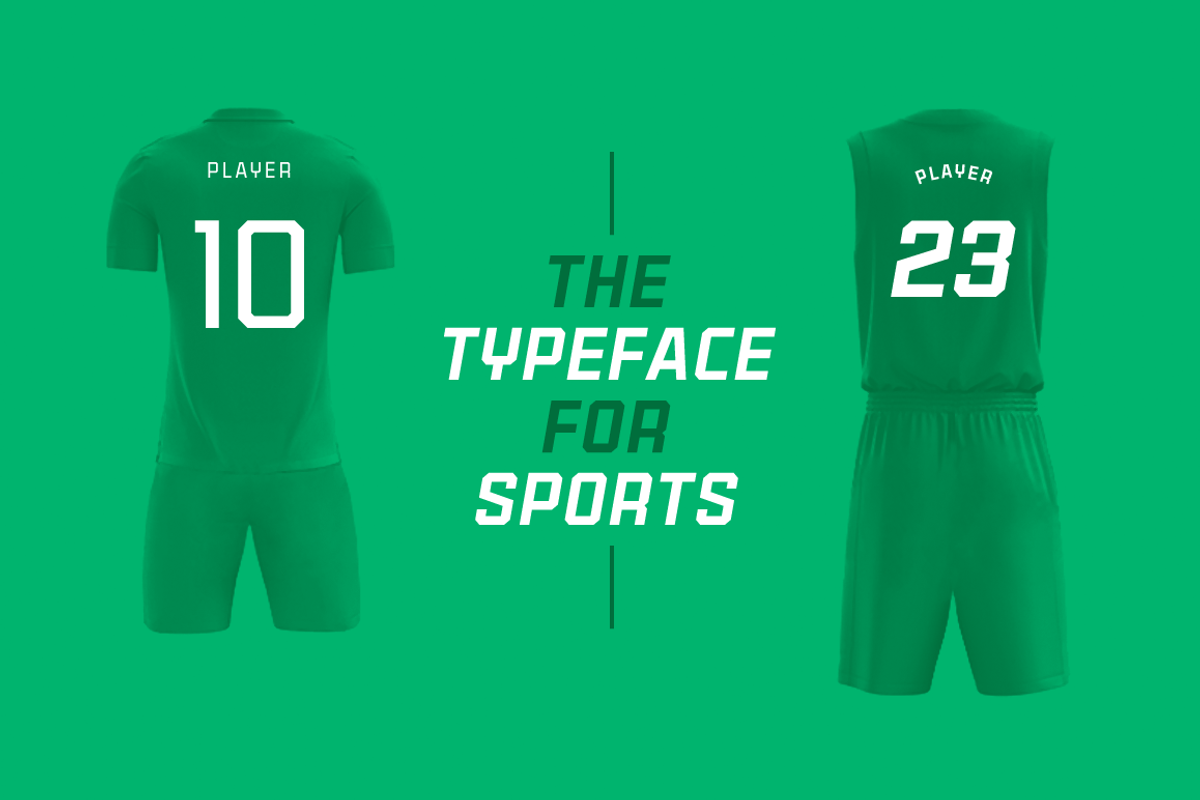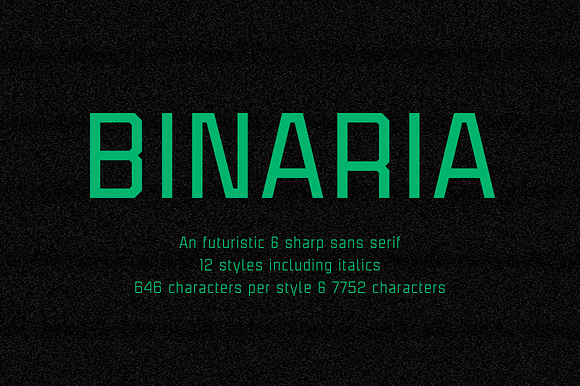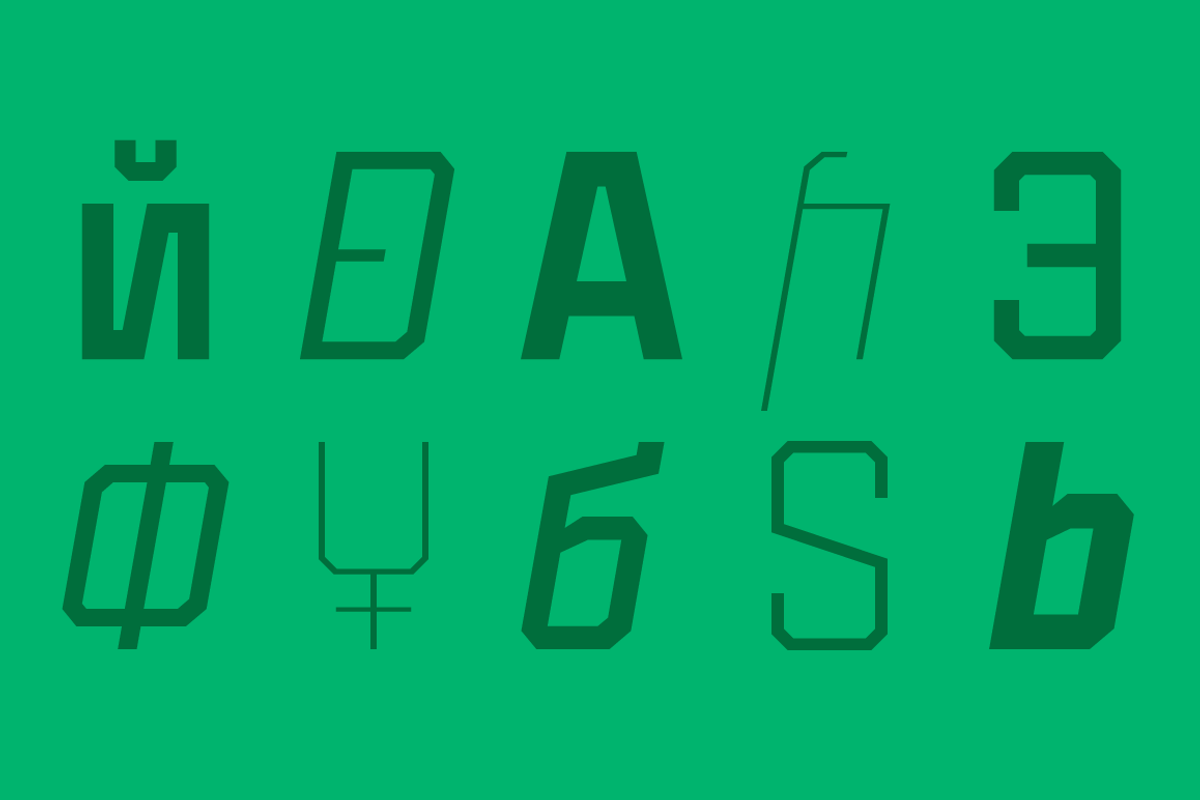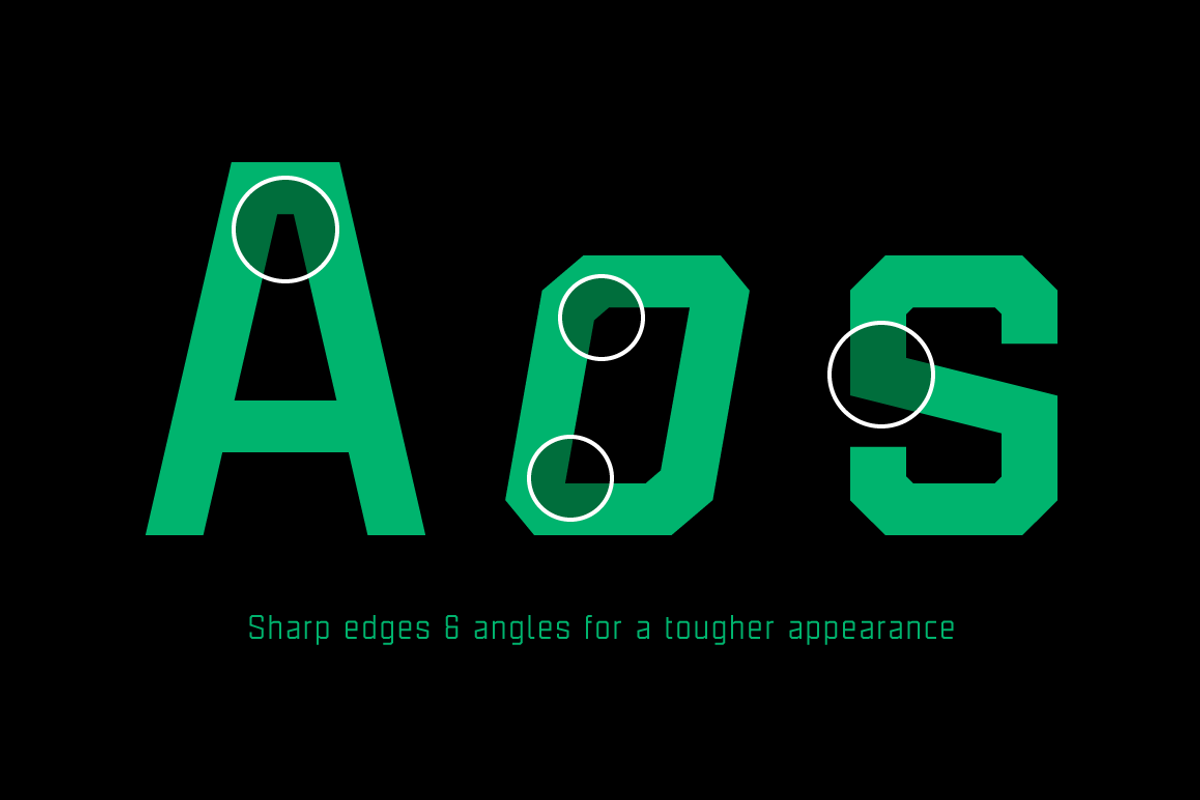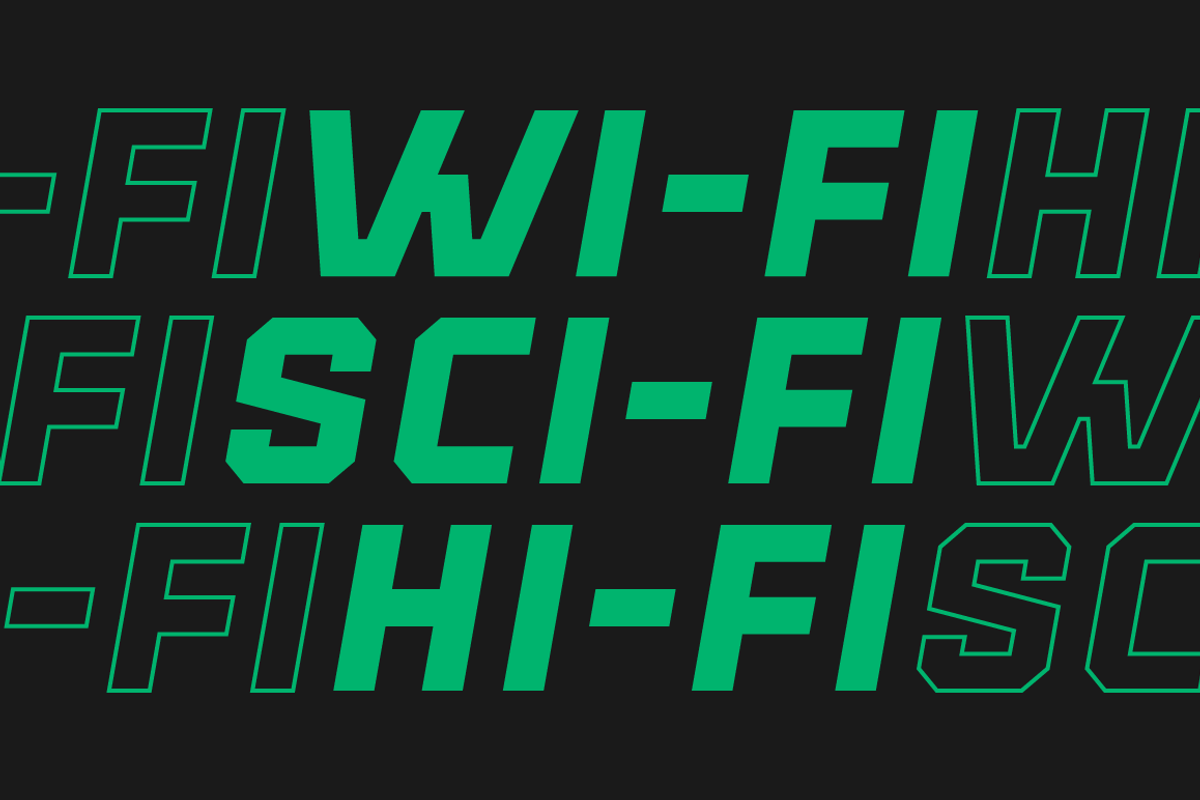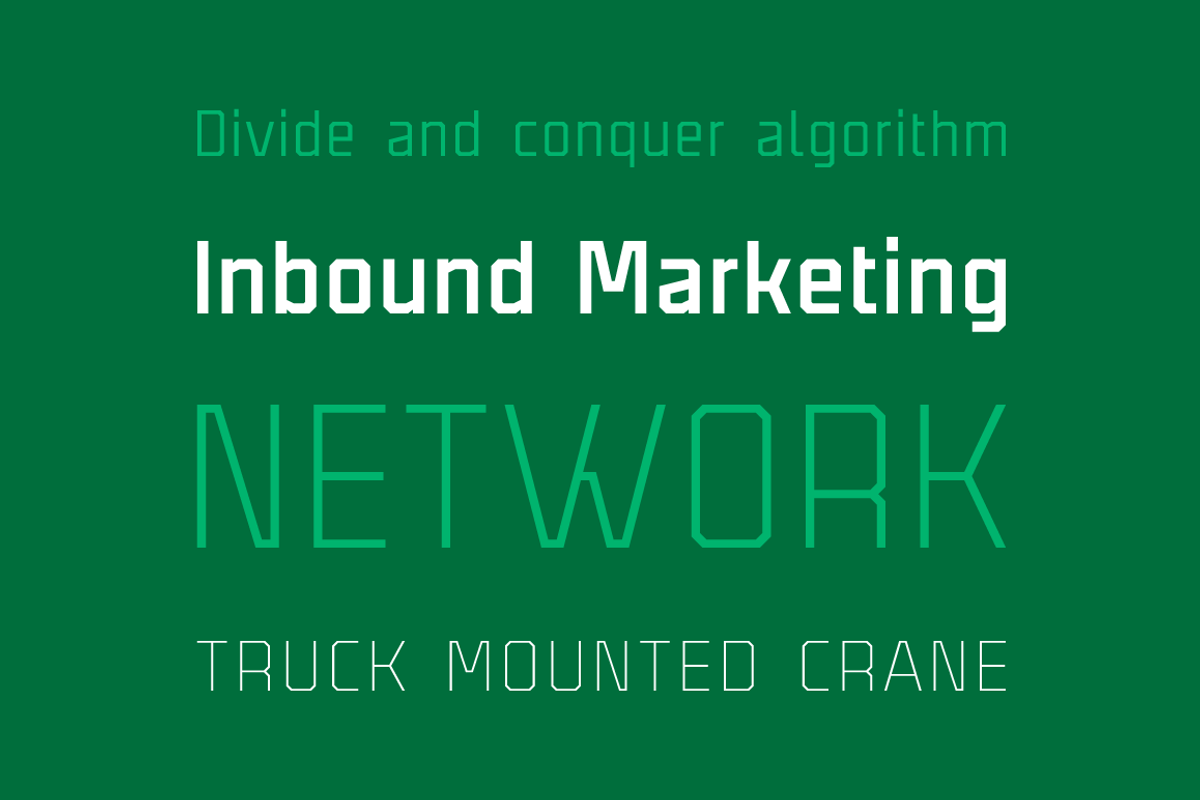
Binaria Font Family
Designer: Pablo Balcells
Binaria font family has been designed for Graviton Font Foundry by Pablo Balcells in 2018. It is a sans serif typeface with a mechanic appearence. Its squared, angular shapes provide a futuristic and robust design. It has been conceived to be most suitable for logos, headlines and display design pieces as well as short length text blocks.
Binaria consists of 12 styles, each containing small caps and glyph coverage for several languages.